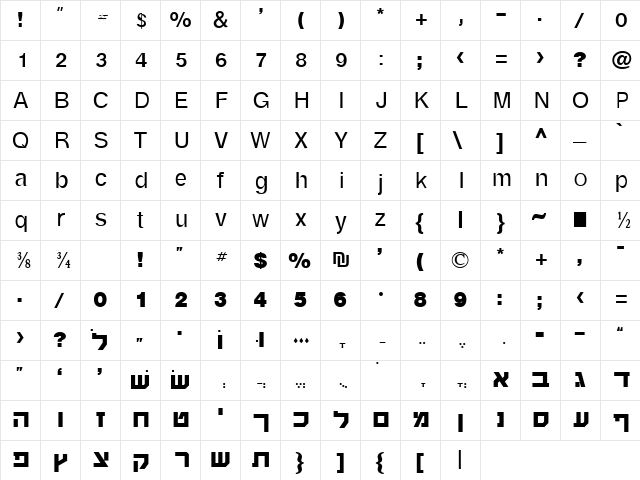
GOLDEN-MCL Bold
Design Context for GOLDEN-MCL Typeface
GOLDEN-MCL takes a measured approach to typography — its balanced proportions and neutral character make it a reliable workhorse for both digital and print work. Its bold stroke weight gives it real presence on the page.